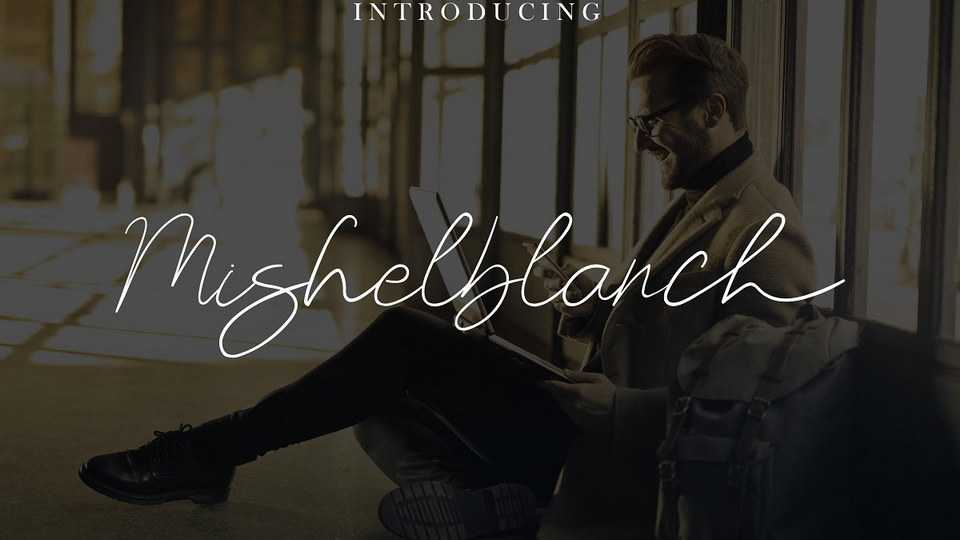
Download Mishelblanch font, a signature handwriting typeface, it’s thin lettered, refined script font that emanates sophistication and elegance. Its stylish ligatures make this font the perfect match for any project.
Designer: Fontmine Studio